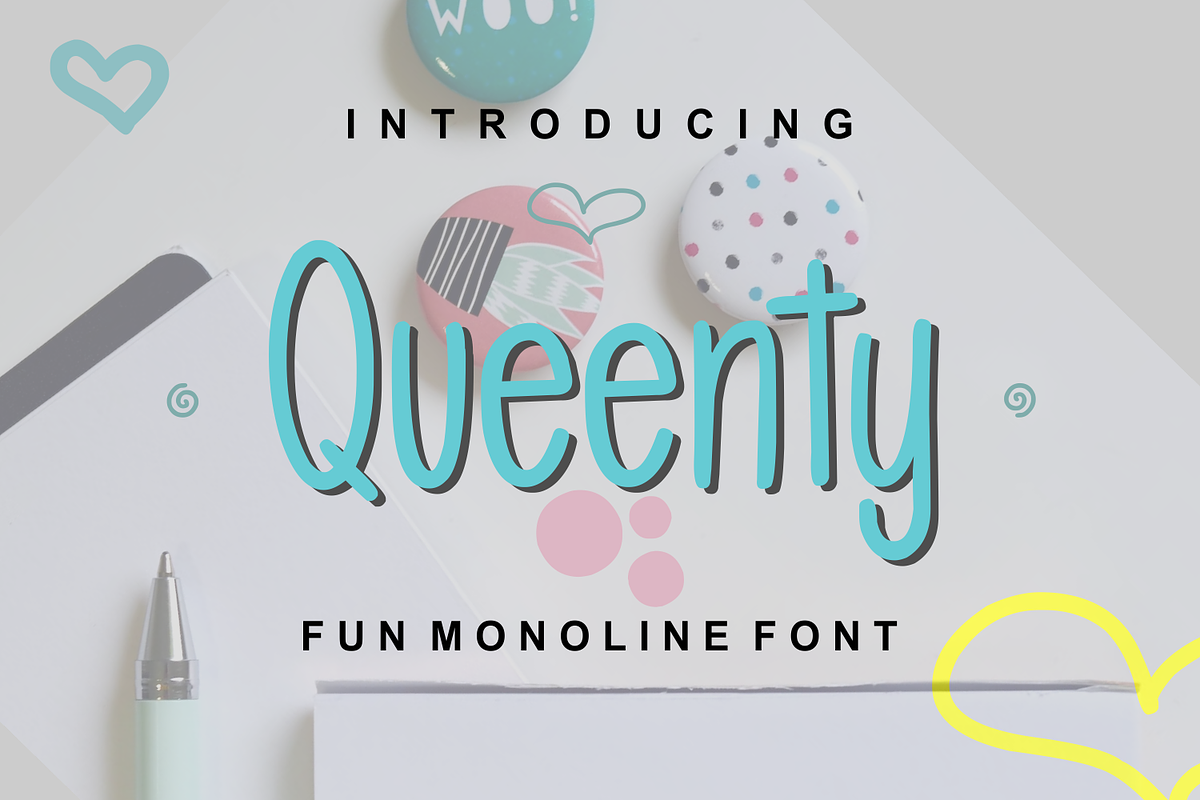
The Queenty Font Free Download is an elegant and versatile typeface designed to bring a touch of sophistication and style to your designs. With its sleek, modern curves and refined letterforms, this font is perfect for creating high-end branding, logos, invitations, and editorial work. Whether you're designing for a luxury brand, a special event, or a creative project, Queenty adds a polished and elegant flair to your work.
Queenty Font Free Download is ideal for designers looking for a stylish, modern font that combines elegance and clarity. Perfect for upscale branding, invitations, and high-end design projects, this font will elevate your creative work with its refined, sophisticated look. Download it today and infuse your designs with the timeless beauty of Queenty!